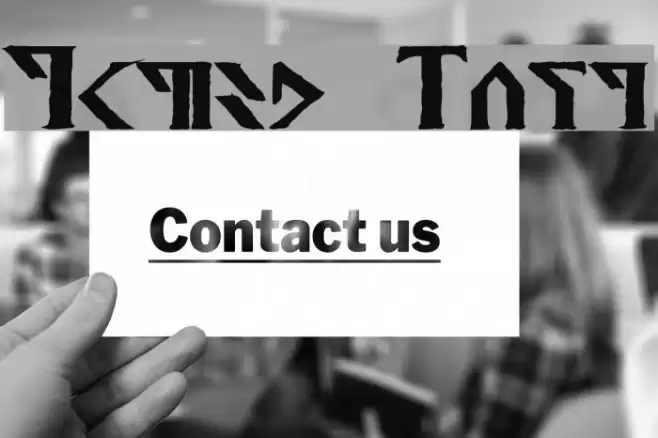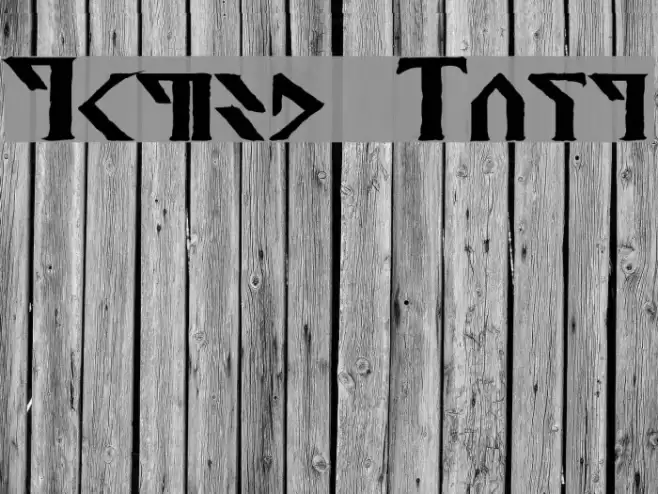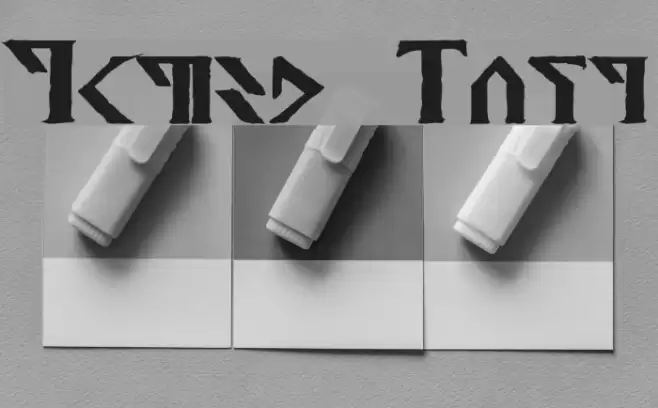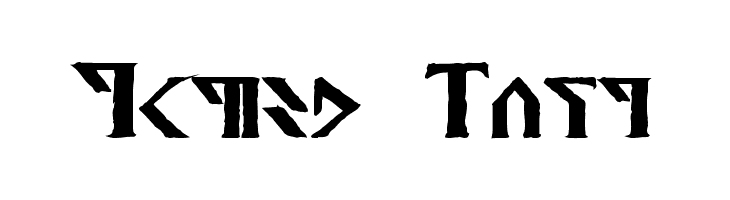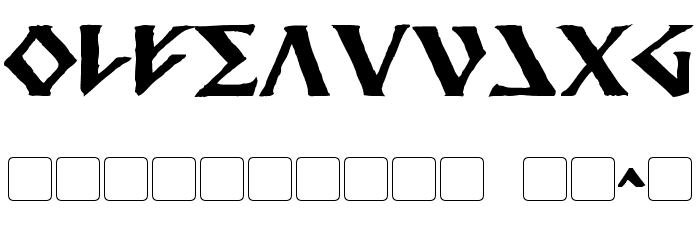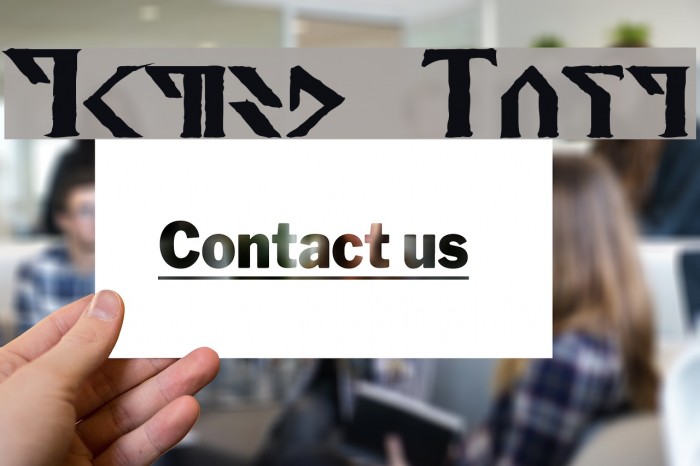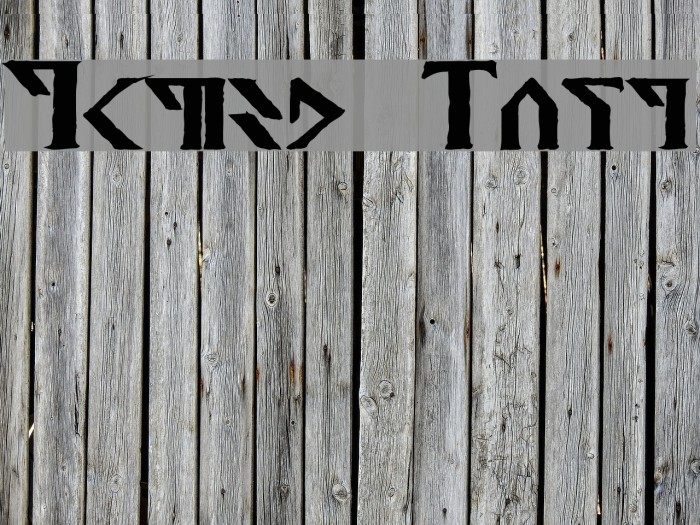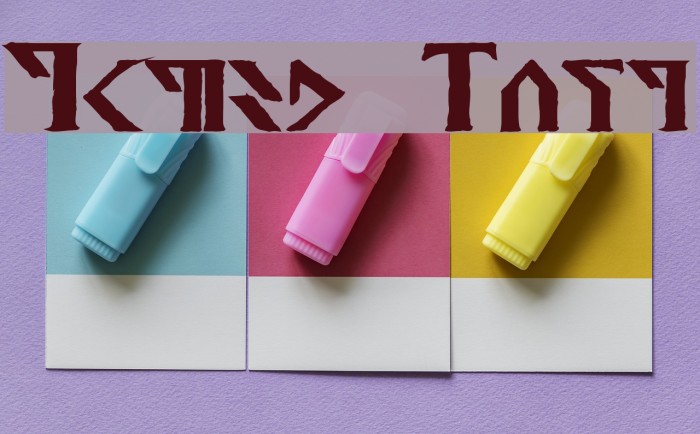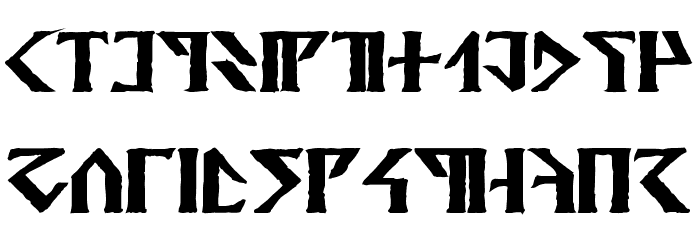
Davek Bold Font
Davek Bold Description
This font features a bold and angular design with a distinct, sharp-edged appearance. The characters are heavily stylized, resembling ancient or runic scripts, which gives them a unique and striking look. The strokes are thick and consistent, creating a strong visual impact. The overall design is reminiscent of medieval or fantasy themes, making it suitable for projects that require a dramatic and eye-catching typeface. The font's geometric shapes and sharp angles contribute to its bold and assertive presence.
A bold, angular font with a medieval, runic style from Uncategorized fonts.
- Proposed Projects: Ideal for fantasy-themed designs, video game titles, movie posters, and branding that requires a bold, ancient aesthetic.